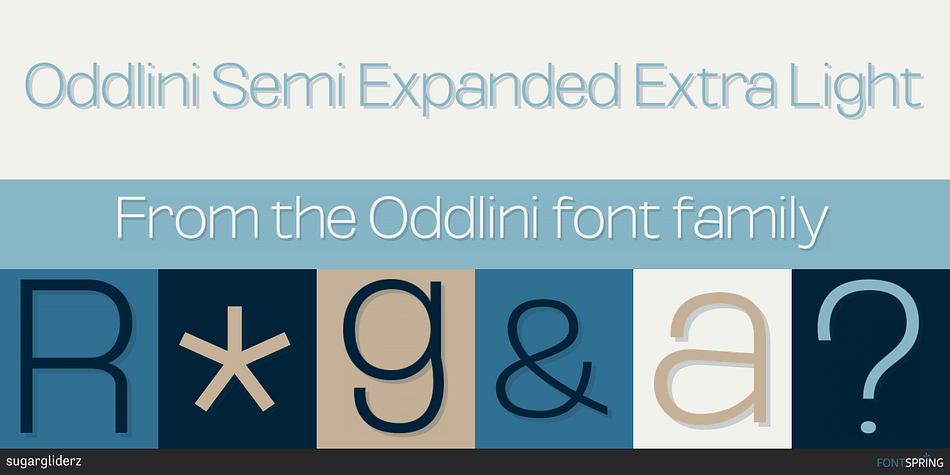
Oddlini Semi Expanded Extra Light
Designed by Shuji Kikuchi, Oddlini is a display sans and sans serif font family. This typeface has three hundred and sixty styles and was published by sugargliderz.
Inside my head, there are a number of forms of Sans Serif typefaces, and I cannot put aside any single one of them. Even if they were in the way of the reading process, I still think they form splendid letters. For me, when I hear for example “Sans Serif”, then immediately Helvetica comes to my mind, even though I don’t think that it is the best Sans Serif out there. Of course it is a great typeface, but I believe that one should not be fixated on the association of Sans Serif = Helvetica. It is just that Sans Serif goes hand in hand with Helvetica after all, and I don’t think it is exaggerated to say that everyone throughout the world would agree. In my head there is no conflict about this either, and I readily agree with this thinking. However, just because of that I don’t necessarily spend time studying Helvetica in detail and analyzing its subtleties in order to progress with a design. I am just clear about the fact that the mental picture of a typeface which I deem important when working on a design is a grotesque typeface like Akzidenz Grotesk. Of course I don’t intend to recut it, but to reverse the way of thinking even further, and have often designed with the vague image of, for example, an old unrefined typeface in mind.